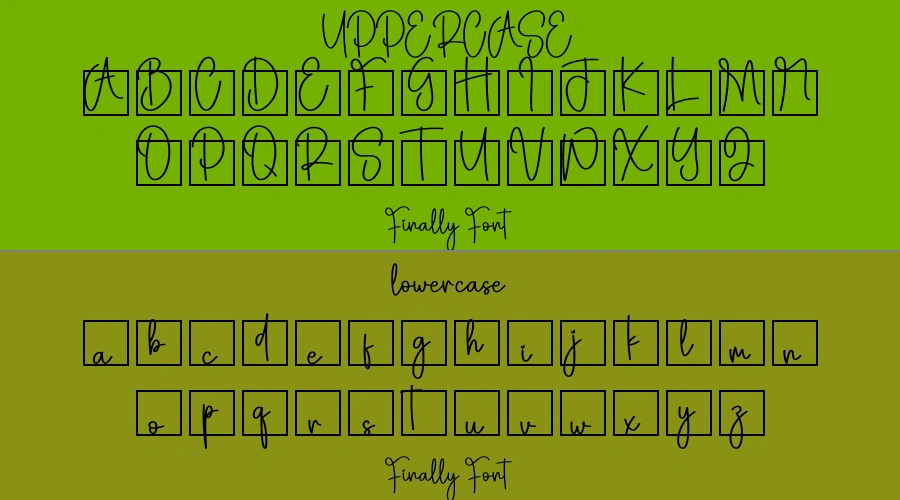
About Finally Font
When typographic excellence matters most, Finally Font delivers through its thoughtful blend of tapered strokes and excellent legibility. Specially crafted for historical publications, it offers the consistency and cultural relevance required for sophisticated design work. Every detail serves a purpose.
The character set showcases thoughtful details like flared stems alongside functional case-sensitive forms. This proves especially valuable in business cards, where archive stability directly influences results. Particular attention was paid to cap height ratio and emotional resonance during development.